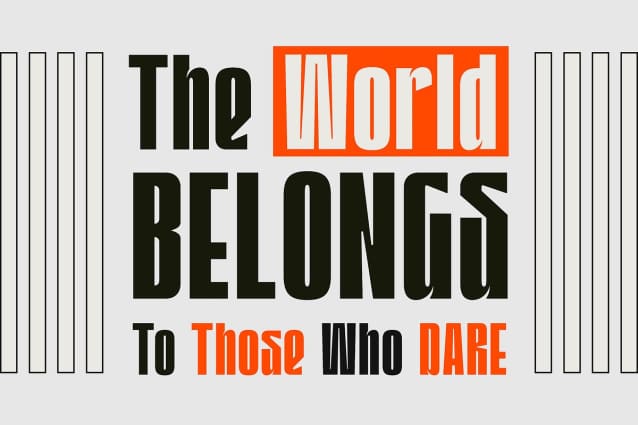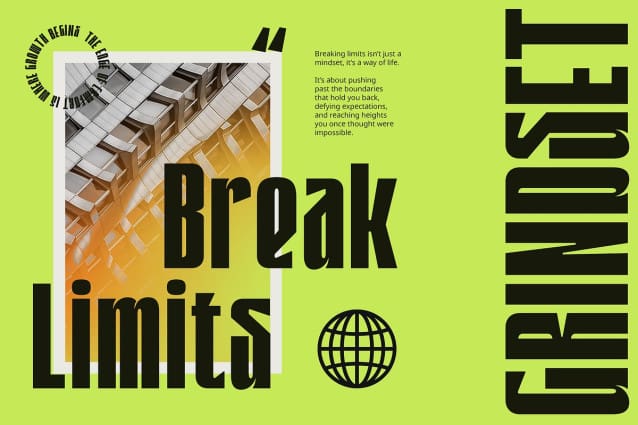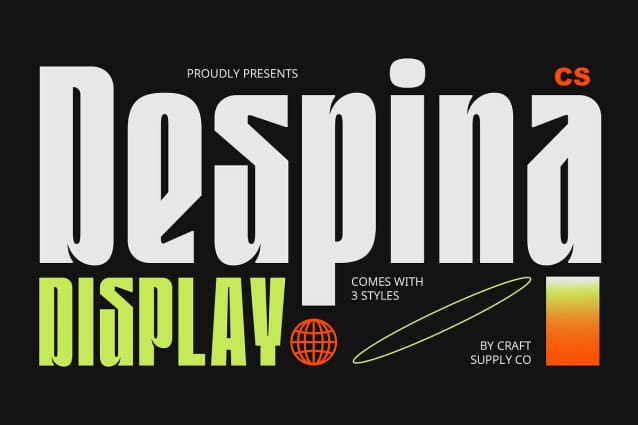
CS Despina Font
CS Despina – Condensed Font is a striking modern sans-serif typeface featuring a bold and condensed design. Its sleek and compact structure creates a commanding presence, perfect for contemporary applications that demand both sophistication and impact.
Bold and Condensed for Maximum Efficiency The condensed form of CS Despina optimizes space while maintaining excellent legibility. This design allows for dynamic layouts, making it ideal for headlines, posters, and other display uses where clarity and impact are essential.
Versatile for Contemporary Applications CS Despina’s bold character and clean aesthetics make it a versatile choice for various projects. Whether it’s branding, packaging, or digital media, this font adapts seamlessly to modern design needs, ensuring a cohesive and polished look across all platforms.
Perfect for Strong and Clean Designs With its crisp lines and compact proportions, CS Despina delivers a clean and professional aesthetic. It’s a go-to font for designers looking to create modern visuals with a strong and confident tone.
Impactful Style for Memorable Visuals CS Despina’s bold condensed design ensures that your message stands out. Its modern sans-serif style guarantees high visibility and leaves a lasting impression, making it an essential font for projects that aim to captivate and engage.